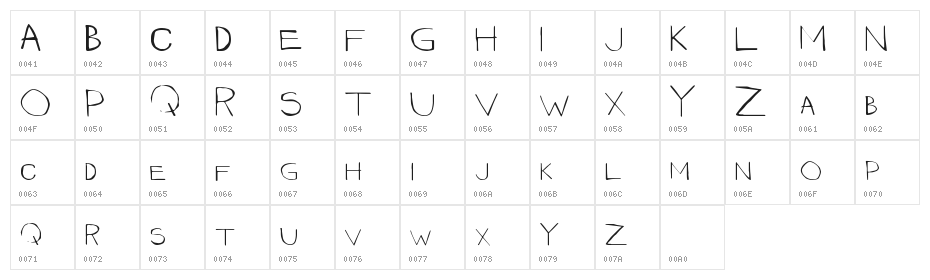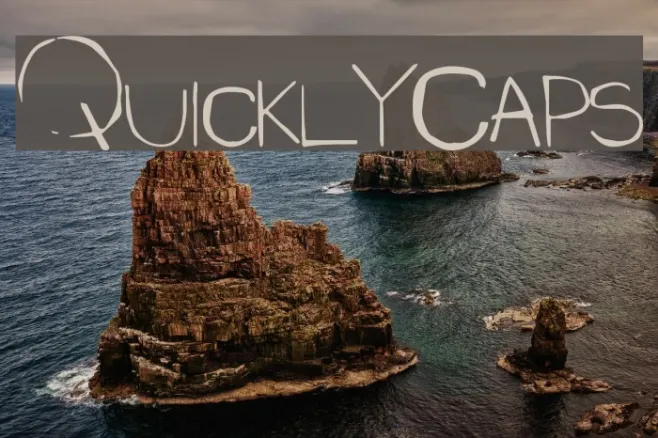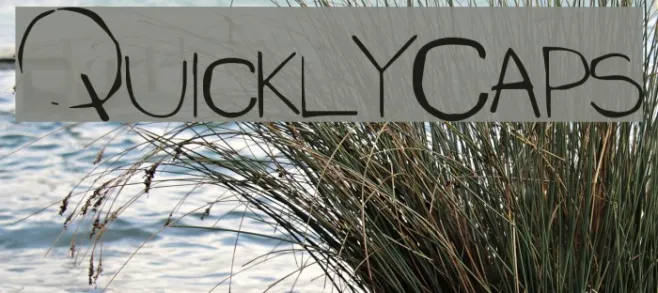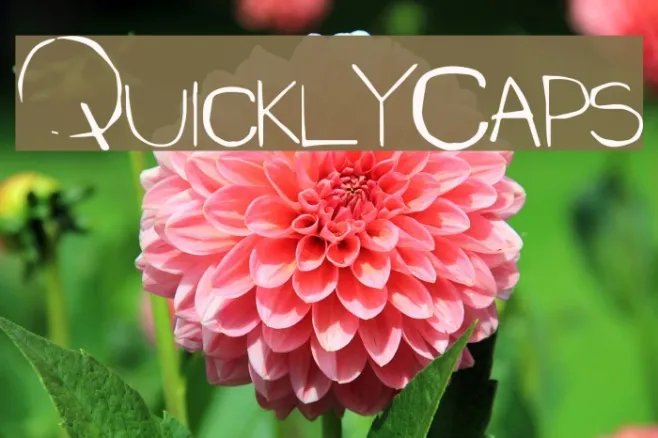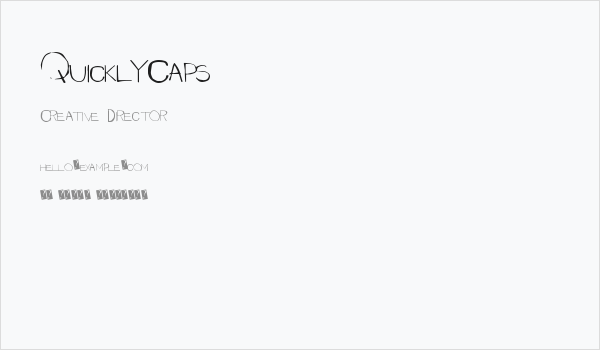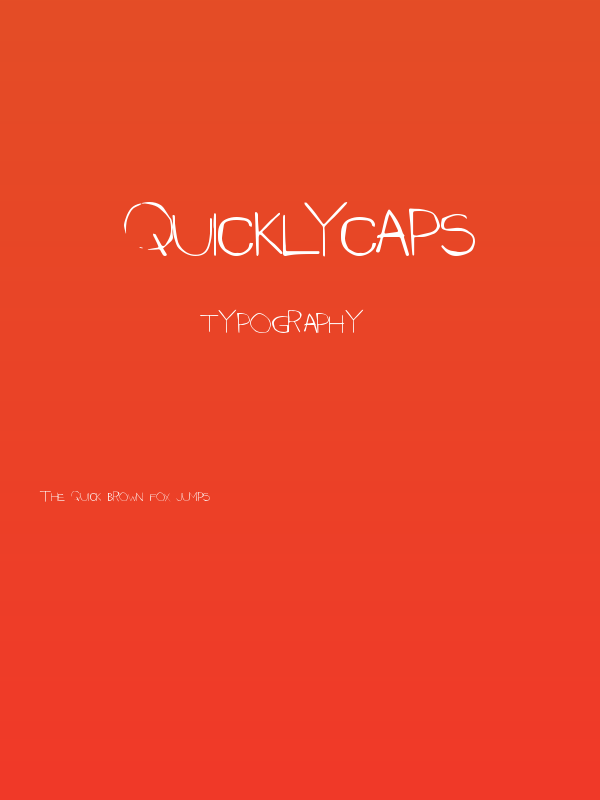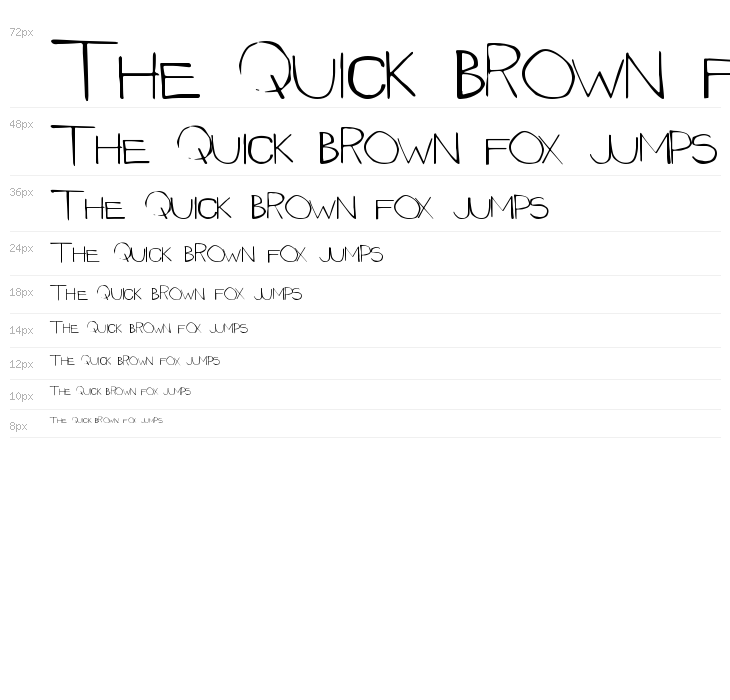
QuicklyCaps Font
QuicklyCaps Description
This font features a playful and quirky design with a hand-drawn aesthetic. The characters are uppercase only, with a mix of straight and curved lines that give it a whimsical feel. The strokes are uneven, adding to the casual and informal style. The letters vary slightly in width, contributing to a dynamic and lively appearance. This font lacks lowercase letters and special characters, focusing solely on the uppercase alphabet. Its unique style makes it suitable for creative and fun projects.
| Proposed Projects | Ideal for children's book covers, playful branding, casual invitations, and creative posters. |